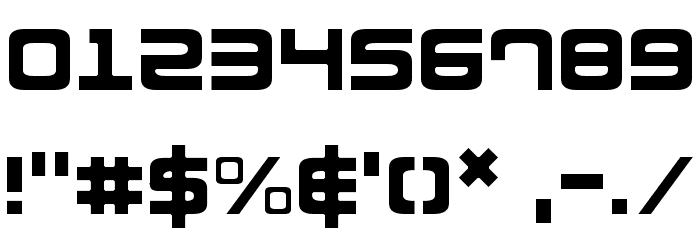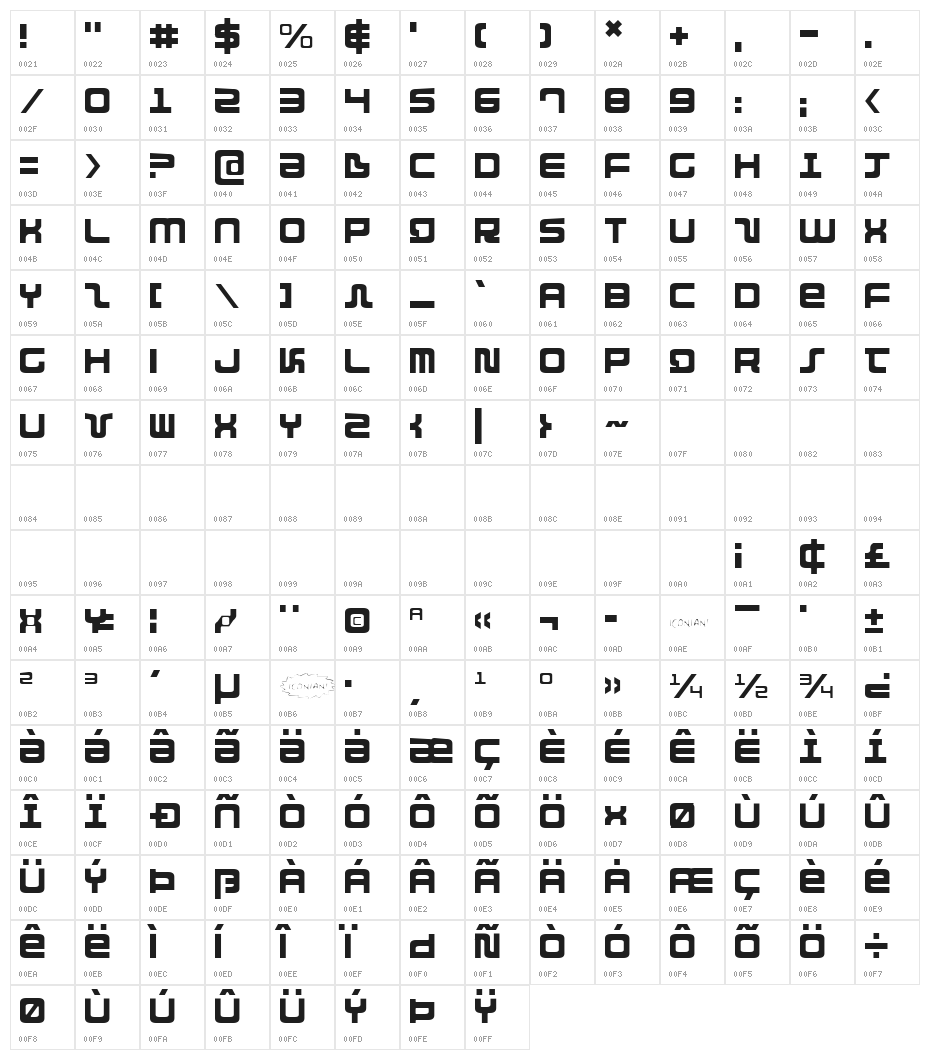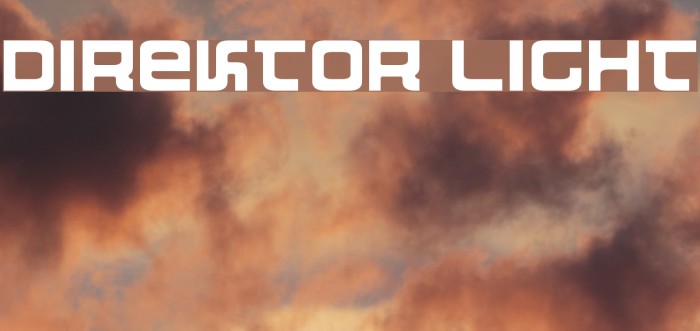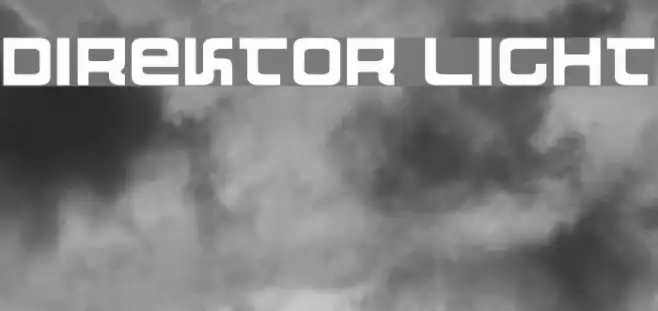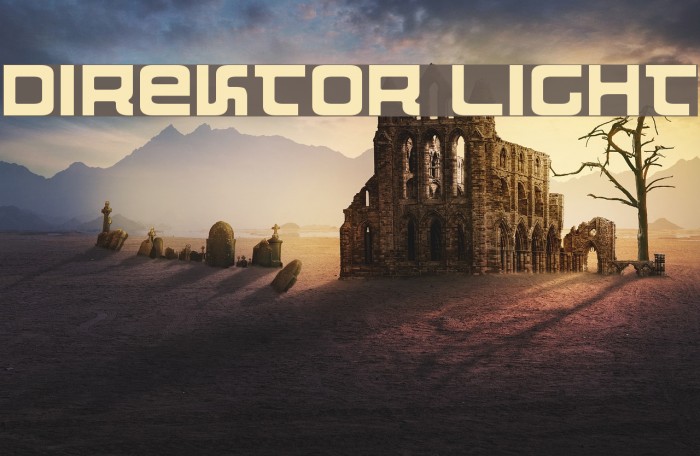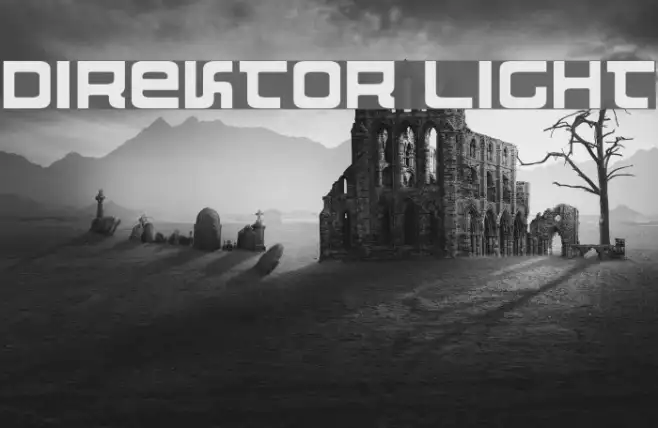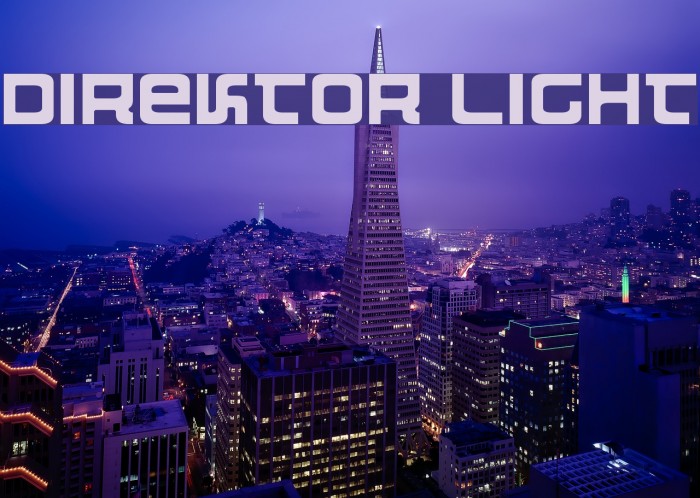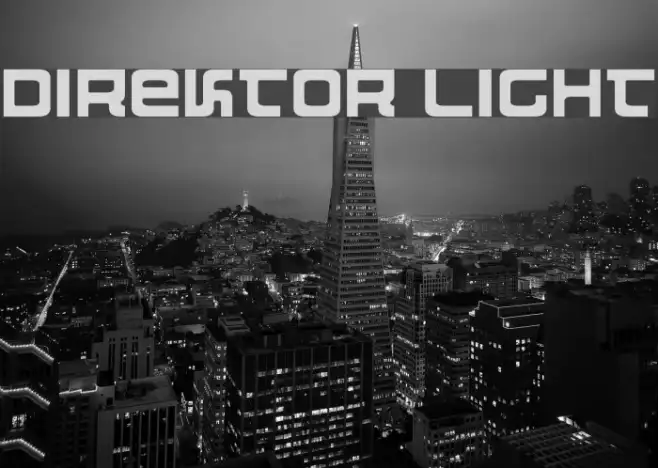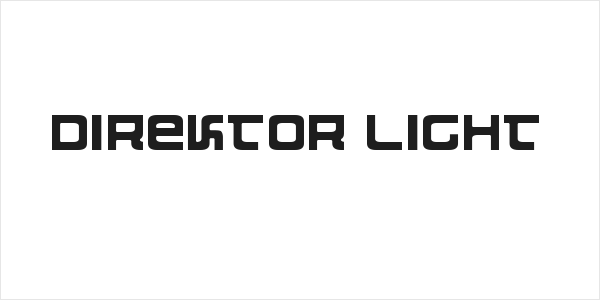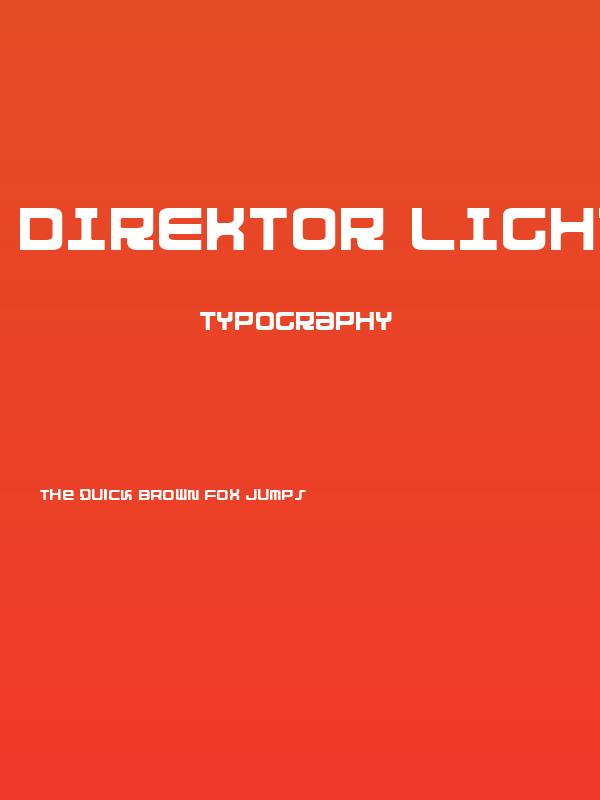
Direktor Light Font
Direktor Light Description
This font features a modern and geometric design with a strong emphasis on clean lines and a structured appearance. The characters are uniformly shaped with a consistent stroke width, giving it a cohesive and balanced look. The uppercase and lowercase letters maintain a similar height, contributing to its uniformity. The numerals and special characters are designed to match the overall aesthetic, ensuring a seamless integration across different uses. This font is ideal for projects that require a contemporary and professional feel, such as branding, advertising, and digital media.
| Use Case | Headlines, Logos, Digital Media |
| Proposed Projects | Ideal for branding, advertising, digital media, and modern design projects. |